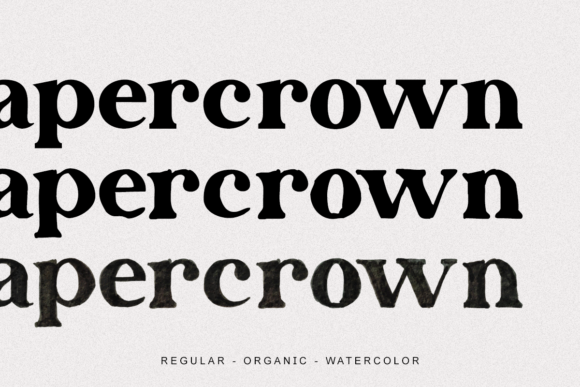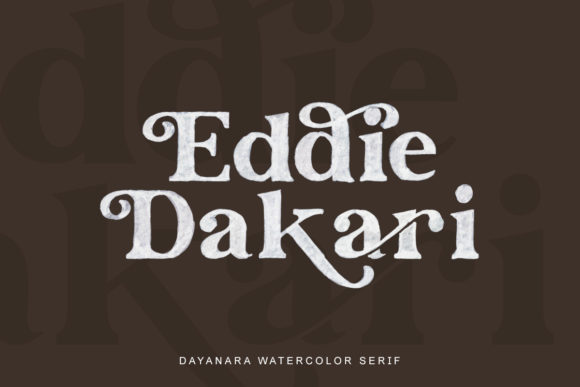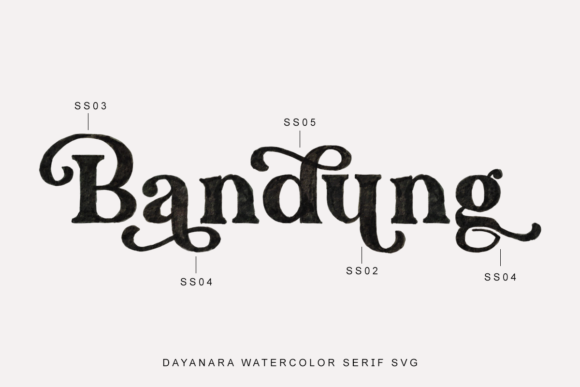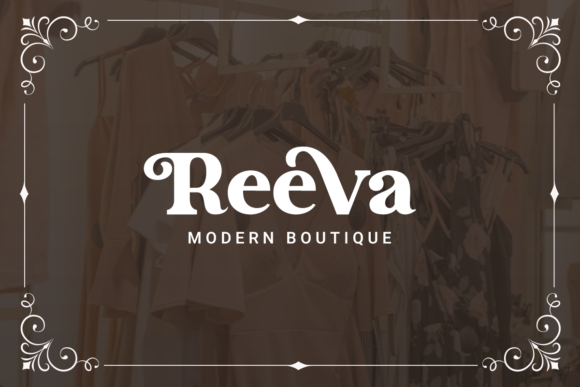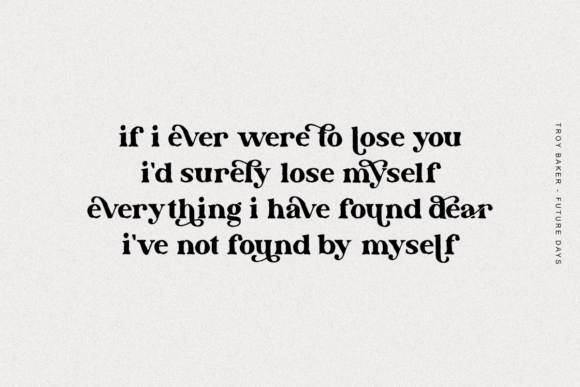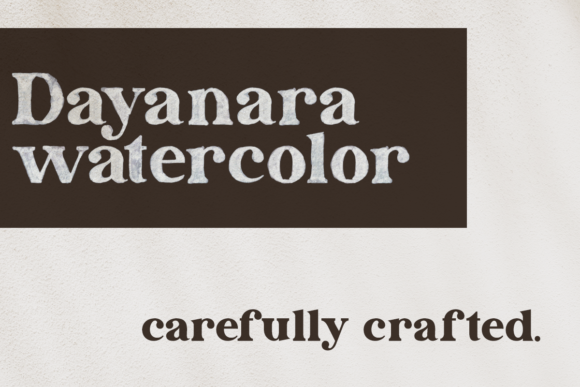
The Dayanara Font: A Designer’s New Best Friend
I still remember the frustration of working on a project, hours spent perfecting every detail, only to be held back by one thing: the font. It was a client request for an elegant, sophisticated look, but every font I tried seemed either too bland or too over-the-top. That’s when I stumbled upon the Dayanara font, and let me tell you, it was love at first sight! ✨
So, what makes Dayanara so special? Here are a few things I absolutely love:
- ✅ Elegant and unique serif design that adds a touch of sophistication to any project
- ✅ Neat and simple style that makes it versatile for a wide range of designs
- ✅ Perfect for both digital and print projects
Of course, no font is perfect, and Dayanara has a few minor quirks:
- ⚠️ Some users might find the font a bit too slender for certain design applications
- Experiment with OpenType features like ligatures and stylistic alternates to add flair to your text.
- Explore the OpenType panel to access advanced typographic features like glyphs and swashes.
The Story Behind Dayanara
While the origins of Dayanara might be shrouded in mystery, it’s clear that its designer aimed to create a font that’s both elegant and versatile. Inspired by classic serif designs but with a modern twist, Dayanara is the result of meticulous craftsmanship and attention to detail.
| What makes Dayanara unique? | Its elegant serif design, simplicity, and versatility make it stand out. |
| Is Dayanara suitable for body text? | Absolutely! Its legibility and classic design make it perfect for both headings and body text. |
| Does Dayanara support OpenType features? | Yes, Dayanara supports various OpenType features, including ligatures and stylistic alternates. |
Dayanara is more than just a font; it’s a design companion that can elevate your projects with its elegance and versatility. Whether you’re working on a branding project, a website, or a craft, Dayanara has the potential to become your go-to font. Give it a try and see how it transforms your designs! ✨